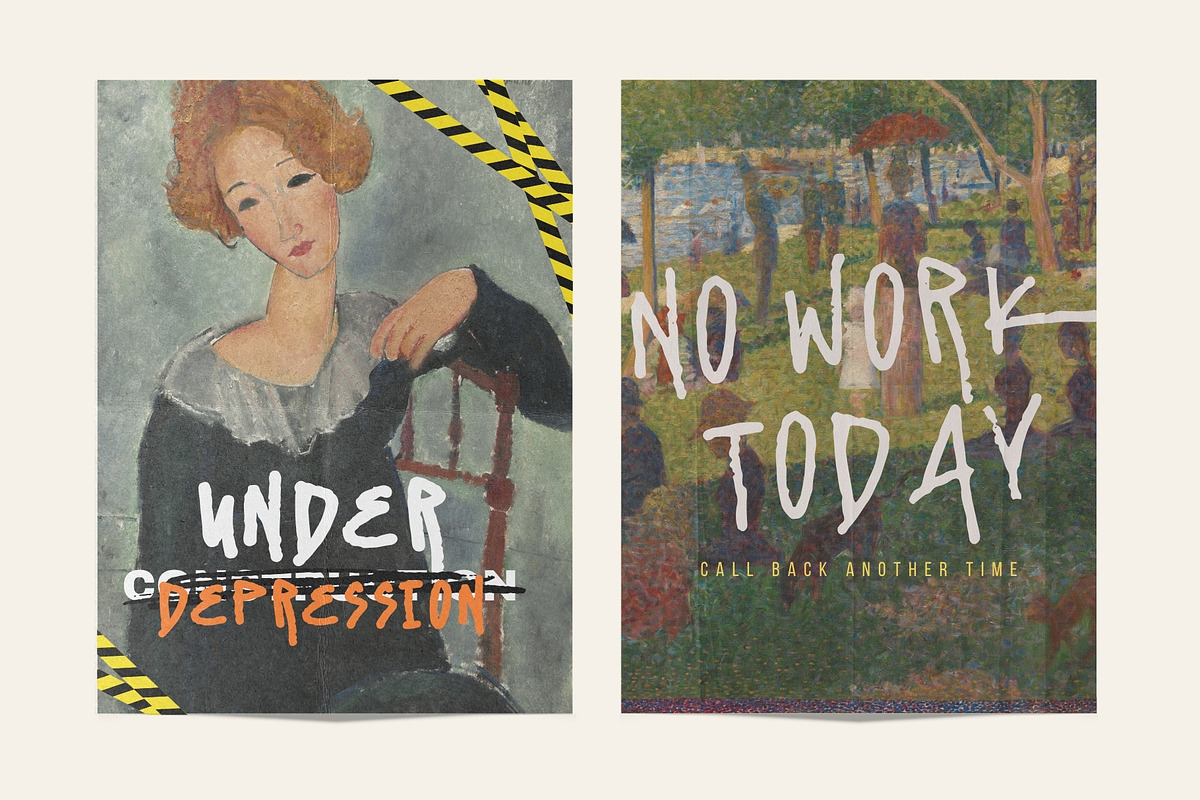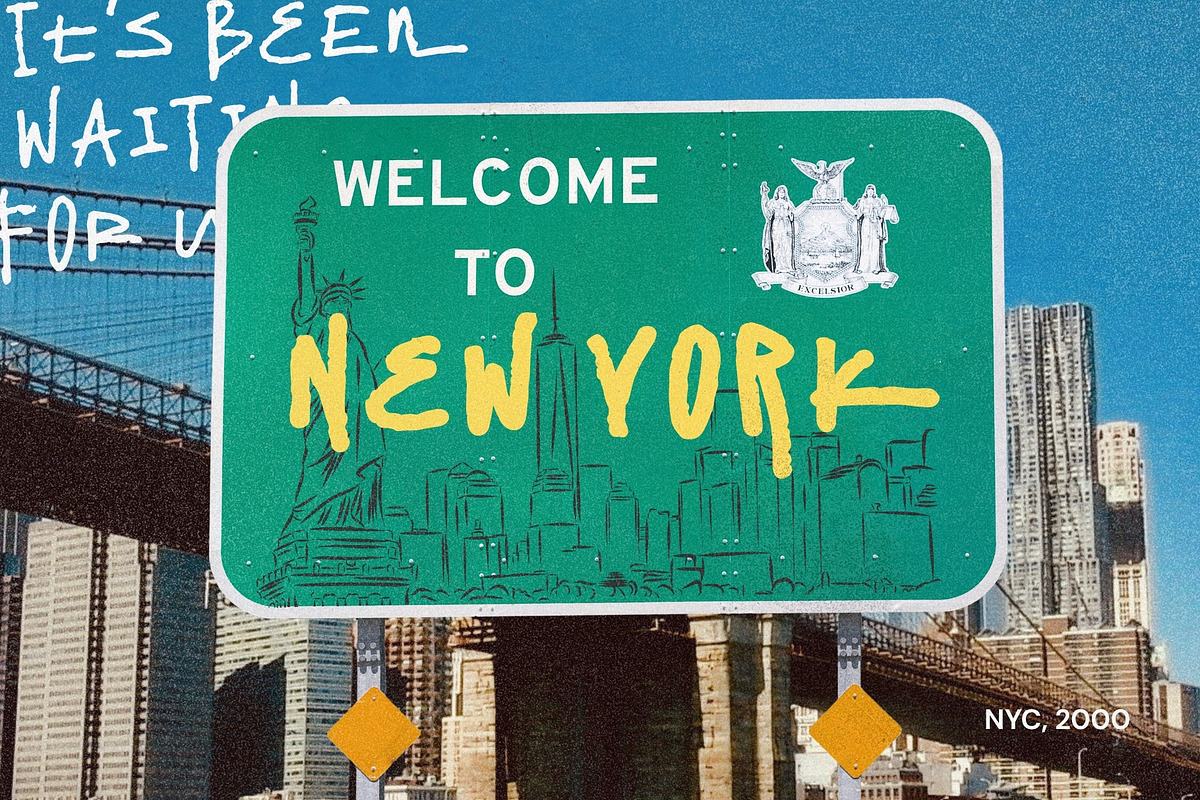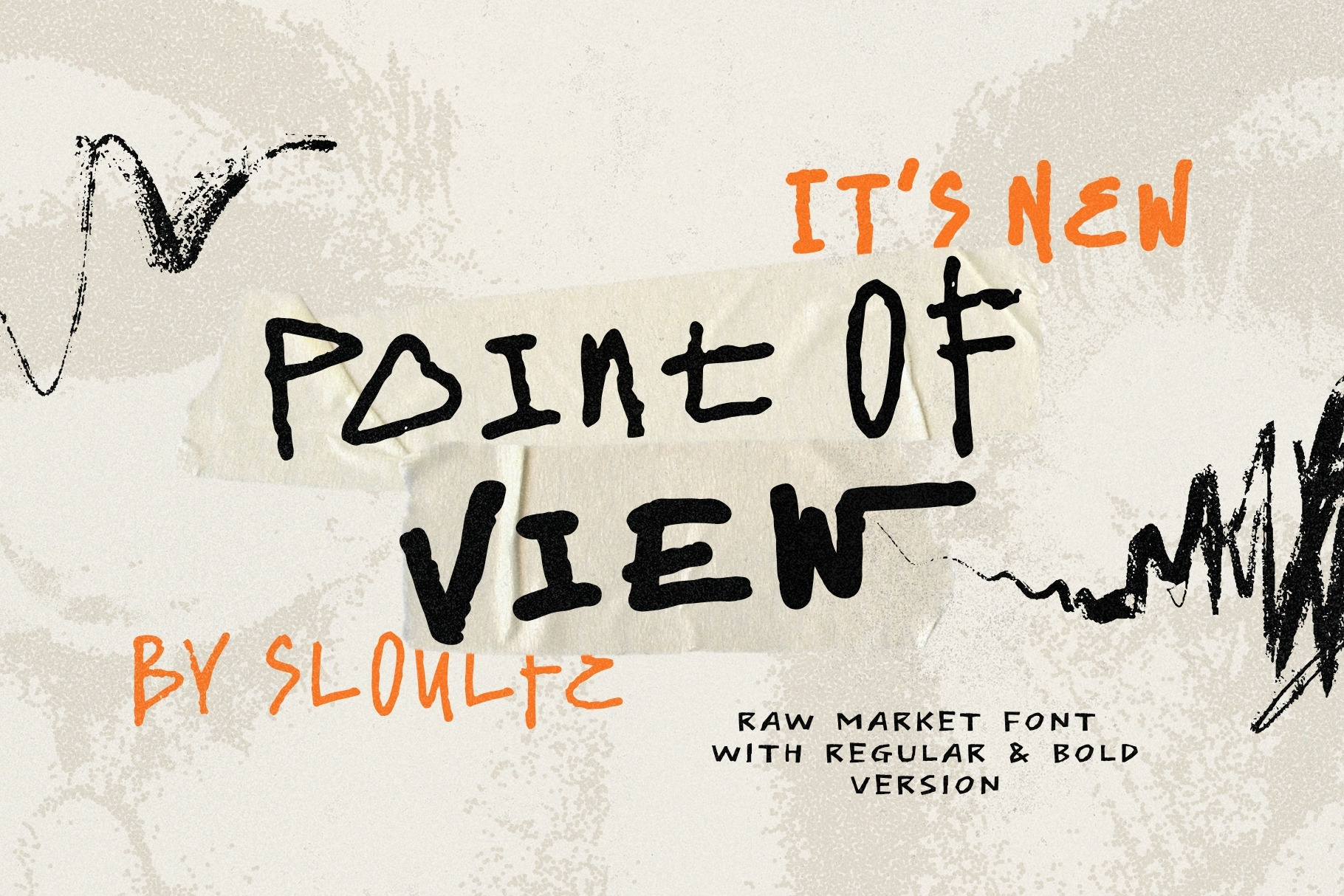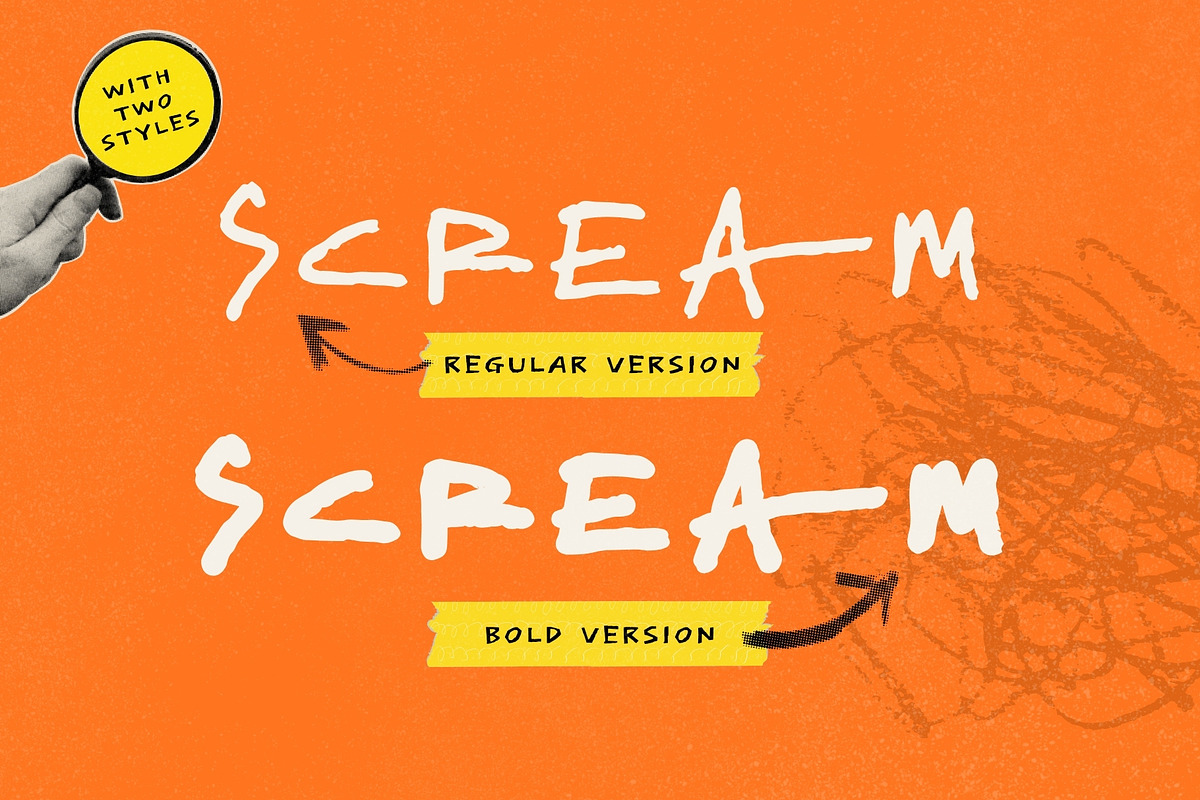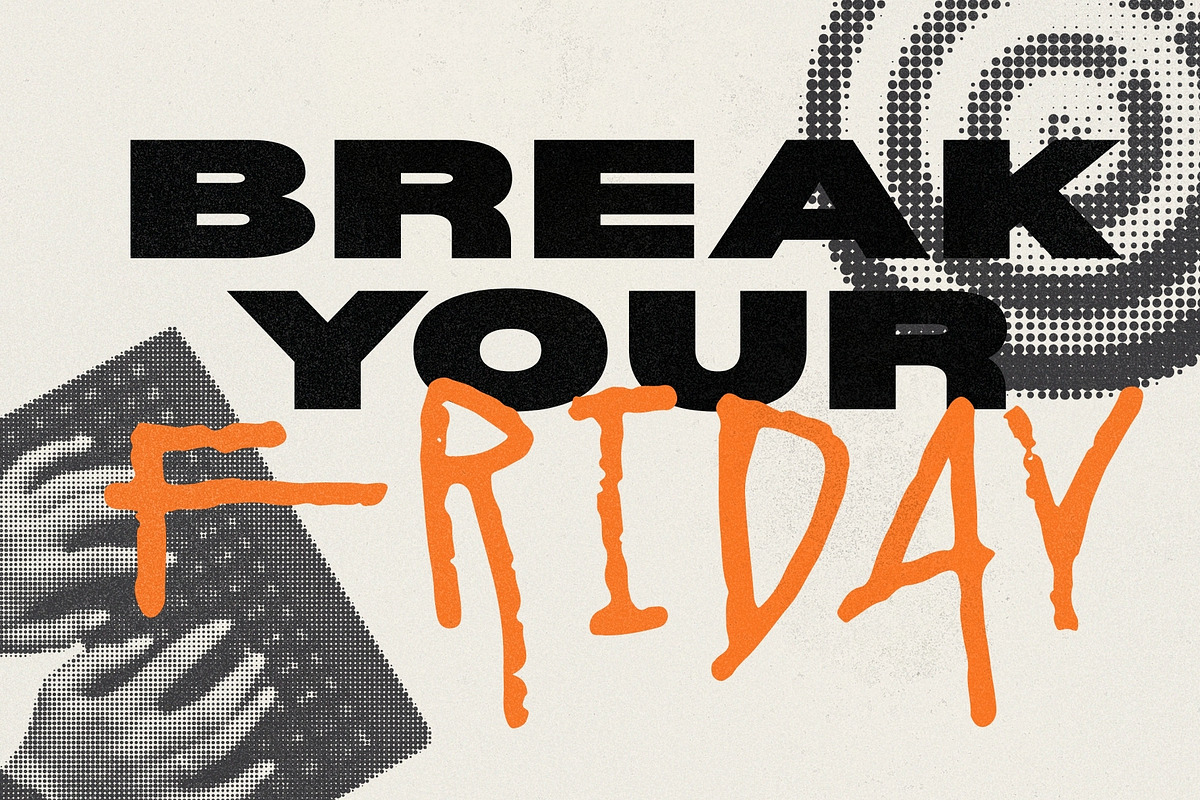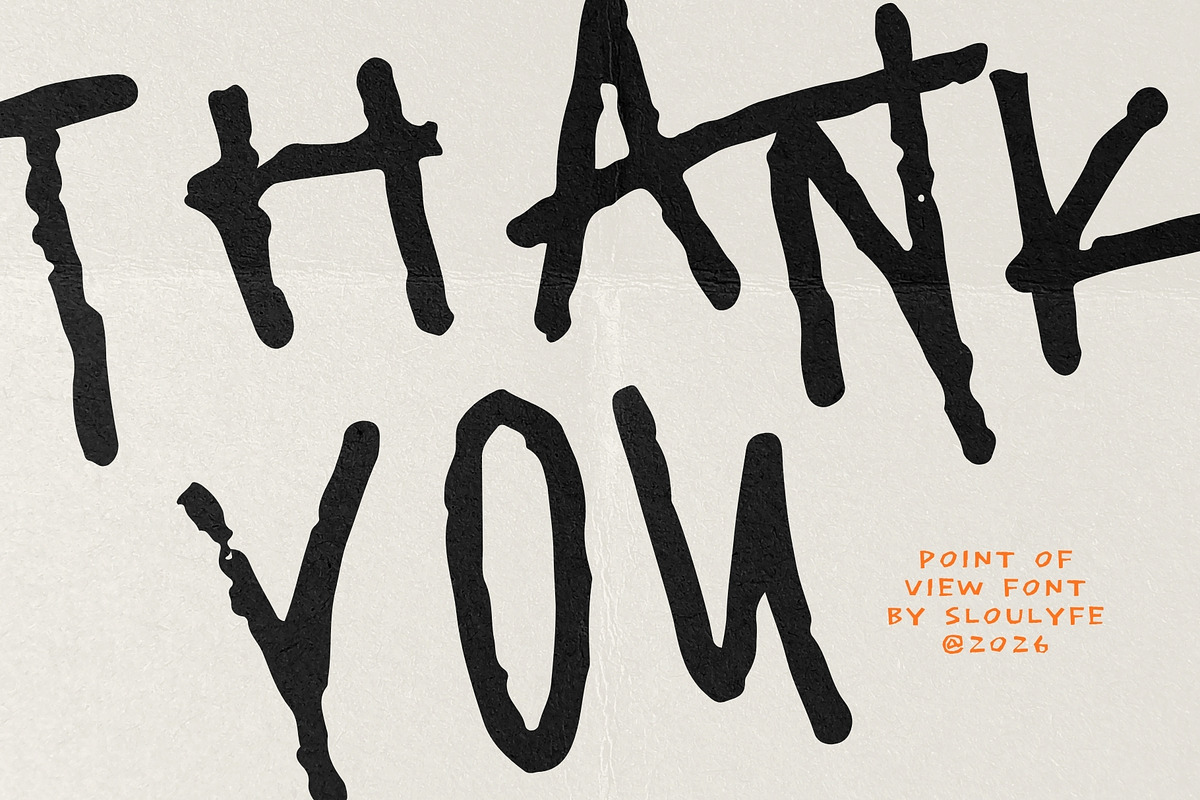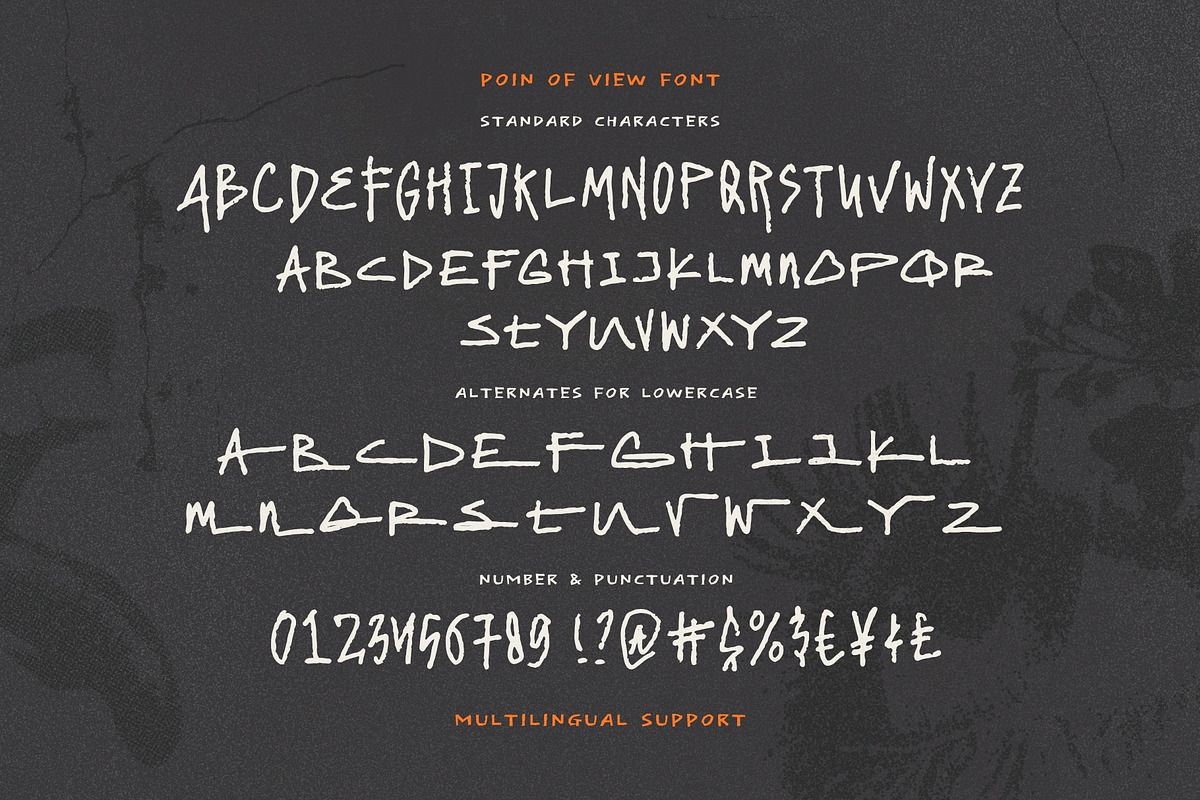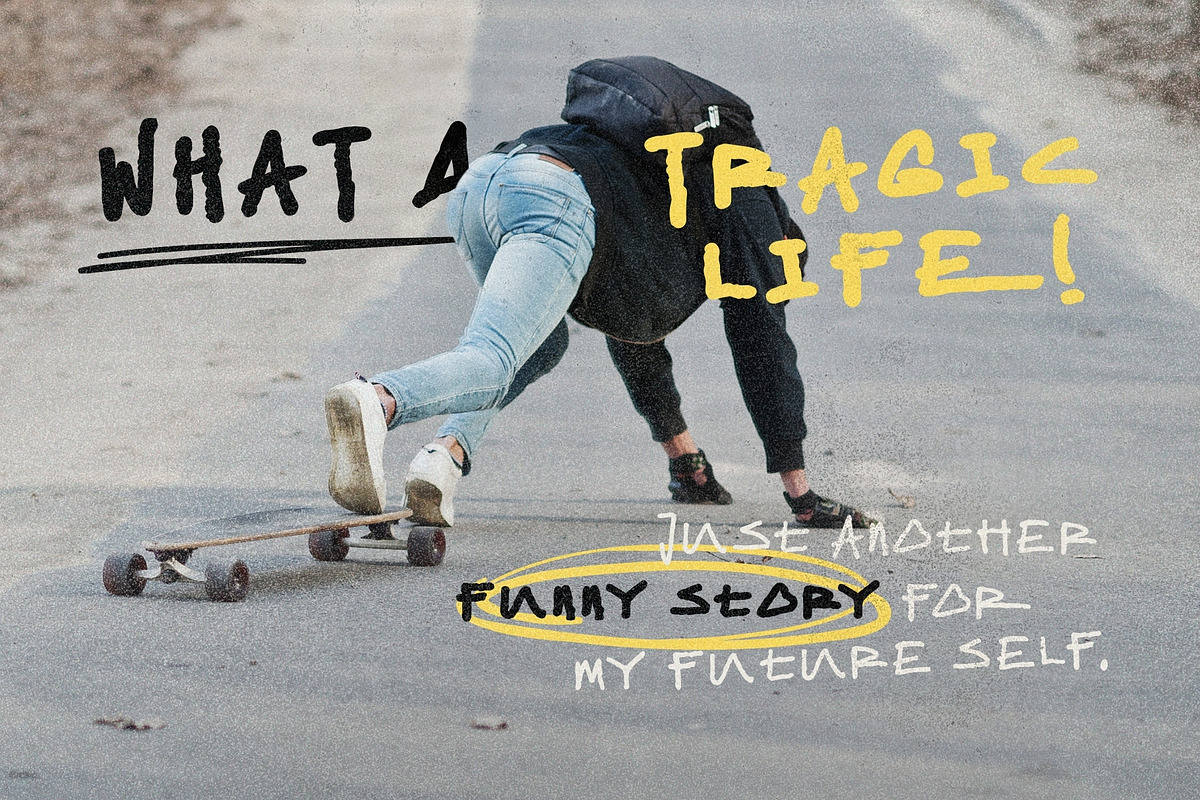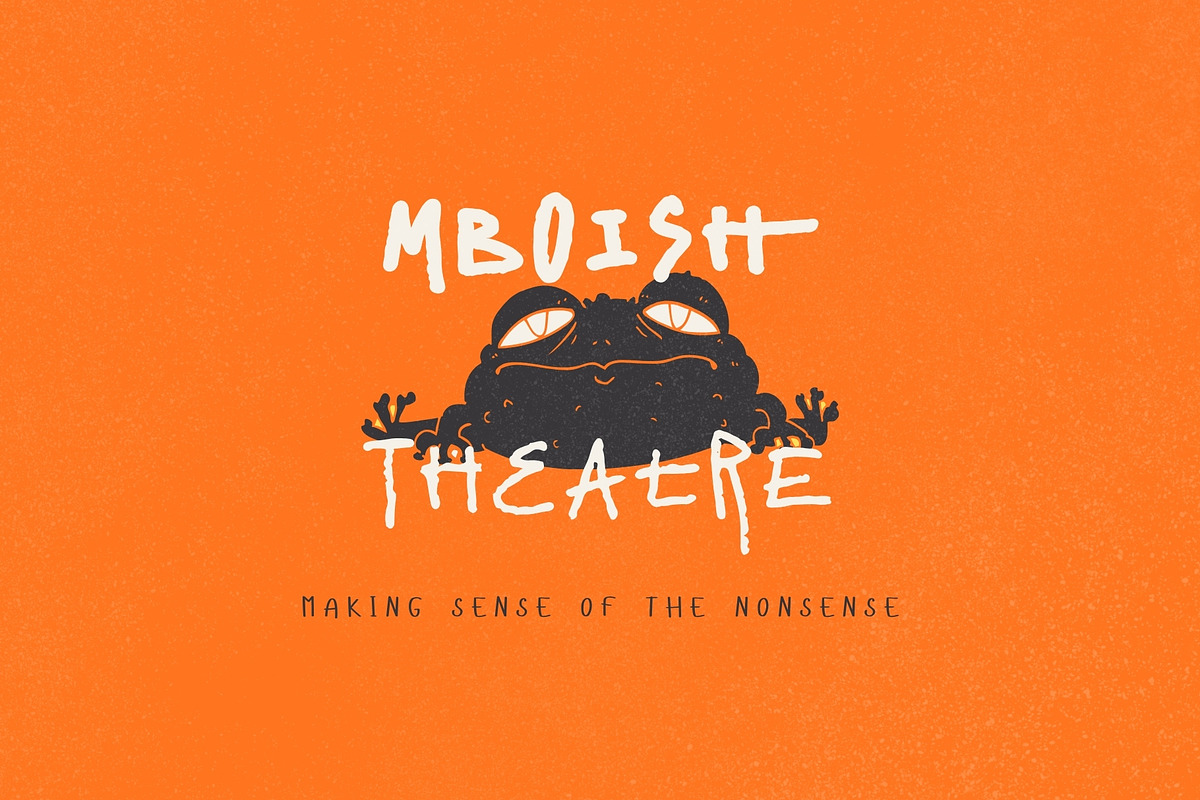
Point of View – Raw Hand-Drawn Font
Point of View is a raw and playful hand-drawn font with a rough, imperfect feel.Made with loose strokes, quirky shapes, and a little bit of attitude — just like lettering made by hand.
It comes with Regular + Bold styles, plus alternate characters to give your words a more natural and creative look.
Features :Uppercase & lowercase, Numbers and punctuation, Alternates or Ligatures, Multilingual support & PUA encoded